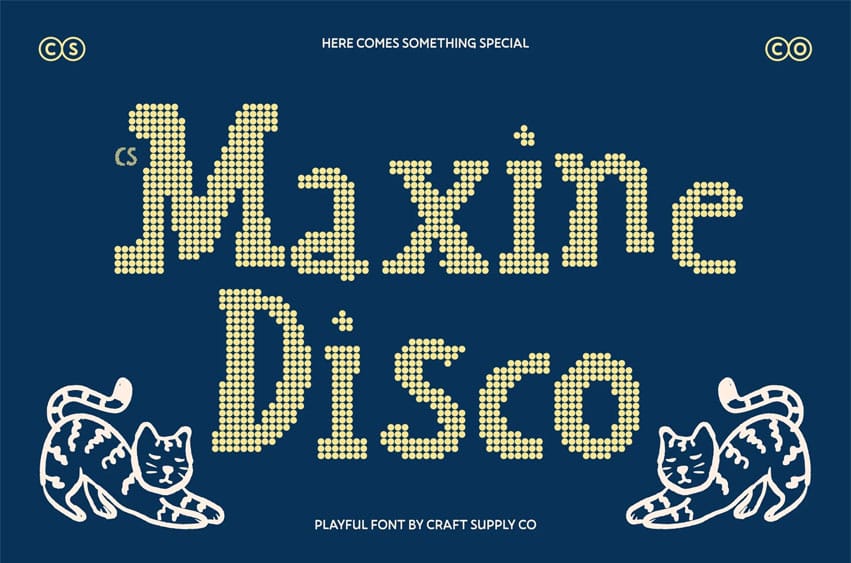
CS Maxine Disco Font Playful Slab Serif with Sparkling Groove Handwritten Slab Serif with Disco Glow This blends the sturdy confidence of a slab serif with the warmth of handcrafted lettering now illuminated with lively disco energy. Its naturally drawn texture meets radiant rhythm, turning every word into a cheerful statement that feels both grounded and ready to celebrate.
Expressive Forms with Dance-Floor Vibe The organic strokes and subtle irregularities remain full of personality, enhanced by a festive pulse that adds movement and sparkle. Each letter carries a playful bounce, reflecting the glamour and joy of a vibrant party atmosphere while maintaining its bold slab structure.
Stable Structure with Lively Charm By fusing slab serif strength with casual handwritten flow, achieves a perfect harmony of stability and spontaneity. The solid serifs anchor the design with clarity and impact, while the expressive curves keep it friendly, upbeat, and full of character.
Perfect for Bold and Cheerful Creations From eye-catching posters and music event branding to creative packaging and playful titles, this font stands out effortlessly. It brings warmth, creativity, and disco-inspired flair to every layout making designs feel energetic, inviting, and unforgettable.